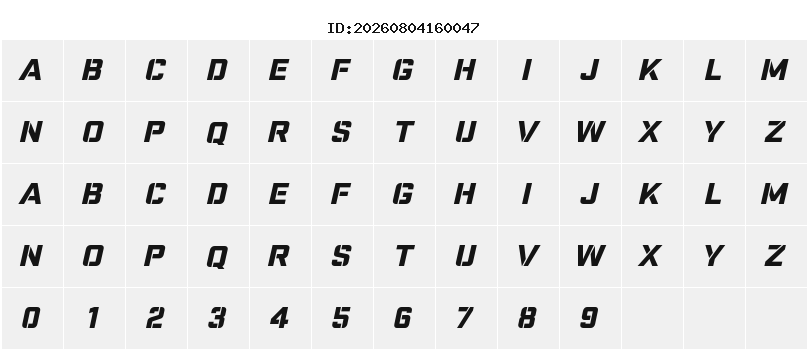
Nike Combat Stencil Preview
• Font Name: Nike Combat Stencil
• Full Font Name: Nike Combat Stencil
• Version: Version 1.00 February 14, 2015, initial release
About Nike Combat Stencil.ttf
Nike Combat Stencil.ttf is a modern, elegant sans-serif font designed for ultimate readability and visual harmony. Perfect for branding, headlines, web design, and print materials.